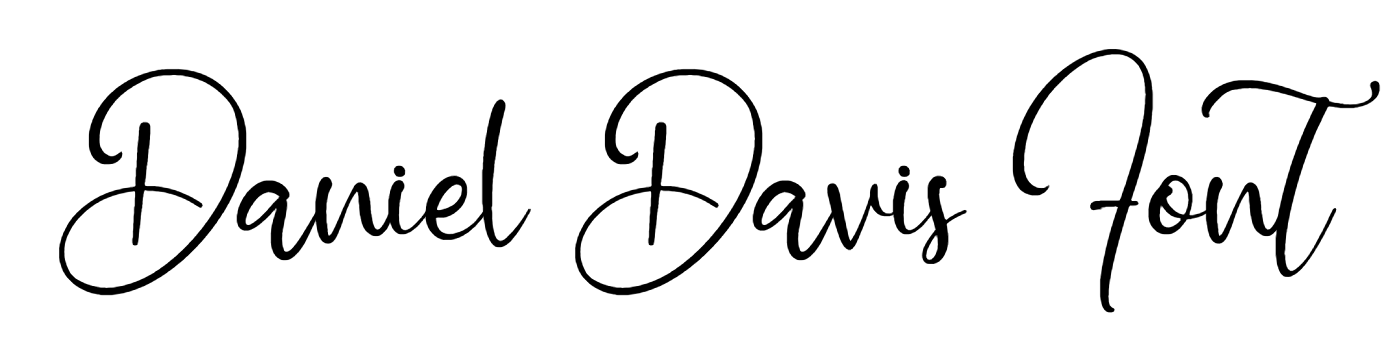
Daniel Davis
Daniel Davis is a handwritten font made by Kong Font (2021). It has a casual, written-with-a-pen look that makes designs feel personal. It's a free download, and you can try it with your own text in the preview above first.
- Designer: Kong Font
- Extra characters: 10 copy-and-paste alternates (Private Use Area)
What You Can Type With Daniel Davis
You get every letter from A to Z in both cases and all the numbers from 0 to 9, which means Daniel Davis can handle full sentences, dates and prices. Everyday marks like &, !, ? and @ are there too. Thanks to its accented letters, it also works for Spanish, French, German, Portuguese and Italian, not just English.
How to Use the Alternate Letters in Daniel Davis
Where Daniel Davis Works Best
Think of Daniel Davis for greeting cards, journal pages and friendly social posts. Its lowercase letters are small compared to the capitals, so set it a size or two bigger than usual. Set it a bit larger than you would a normal text font. Handwriting styles lose their charm once they get too small to read comfortably.
Does Daniel Davis support accented letters?
Yes. Daniel Davis includes the accented letters needed for Spanish, French, German, Portuguese and Italian, so it works for more than just English.